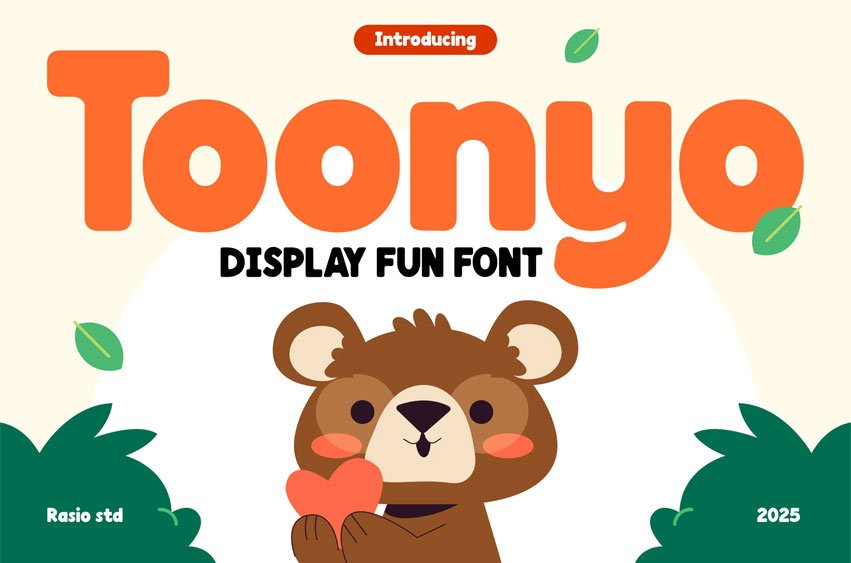
Toonyo Font Playful Display Font is a bold and cheerful sans-serif typeface, designed with rounded, chunky letterforms that bring a fun and lively touch to your designs. Perfect for eye-catching headlines and creative branding, Toonyo adds an energetic and friendly vibe to any project. It includes uppercase and lowercase characters, numbers, and punctuation, offering versatility across different design styles. Whether for children’s products, event promotions, or playful branding, Toonyo is the go-to choice for designs that need a modern and approachable feel.
Relevance and Use Cases are perfect for children’s branding, fun event promotions, social media graphics, creative advertising, product packaging, educational materials, posters, and design projects that require a bold, cheerful font with an approachable and lively feel.